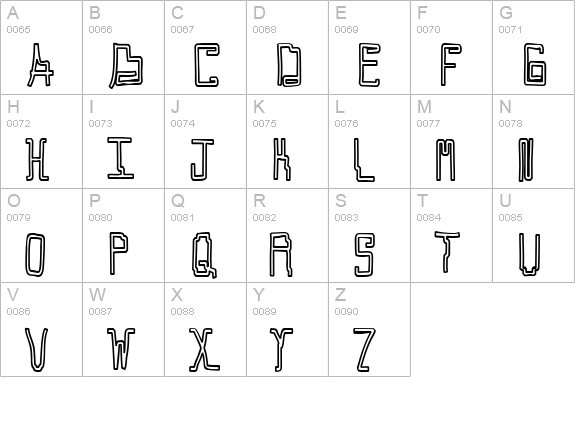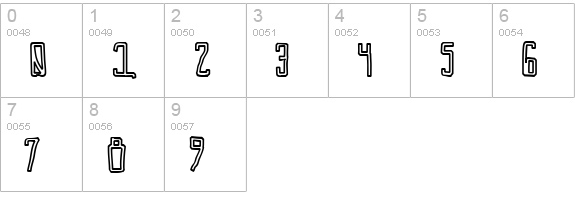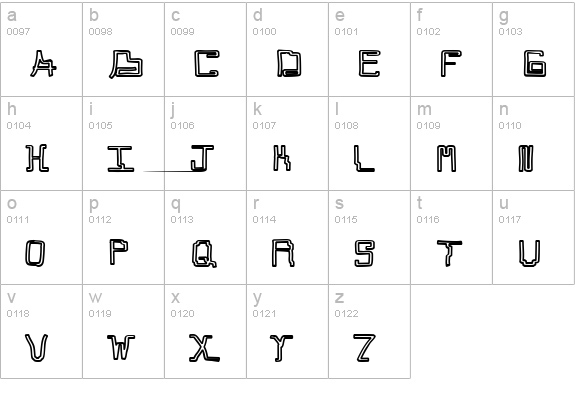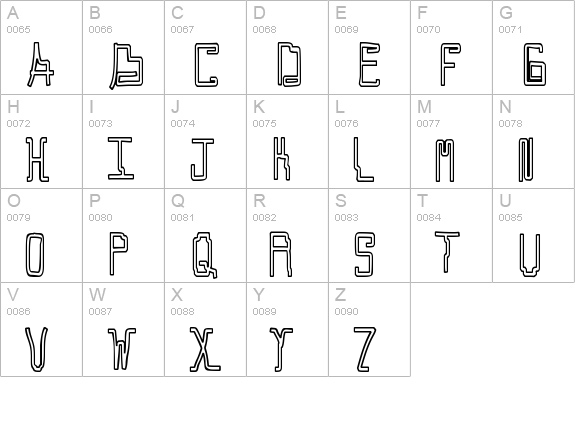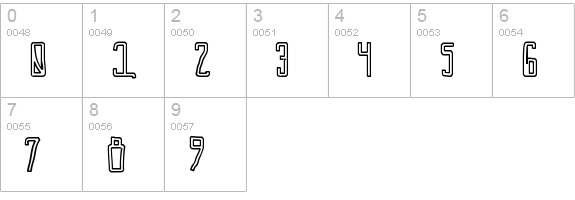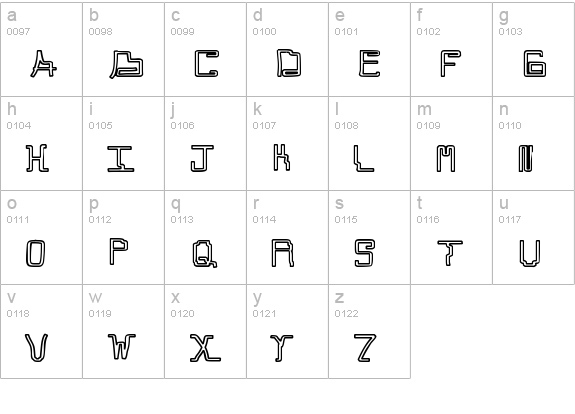
Introducing Callaxis font - a sleek and modern typeface that exudes elegance and sophistication. With its clean lines and contemporary style, Callaxis is perfect for a wide range of design projects, from branding to editorial layouts. This versatile font features a unique blend of sharp edges and soft curves, creating a harmonious balance that catches the eye. What sets Callaxis font apart is not only its stunning design, but also the fact that it is completely free to use. That's right - you can download Callaxis font for free at FontsMarket.com and elevate your projects with this premium typeface without breaking the bank. Whether you're a designer looking to add a touch of class to your work or a business owner wanting to make a statement with your branding, Callaxis font is the perfect choice. Don't miss out on this opportunity to enhance your designs with the beauty and sophistication of Callaxis font. Download it for free today and let your creativity shine.